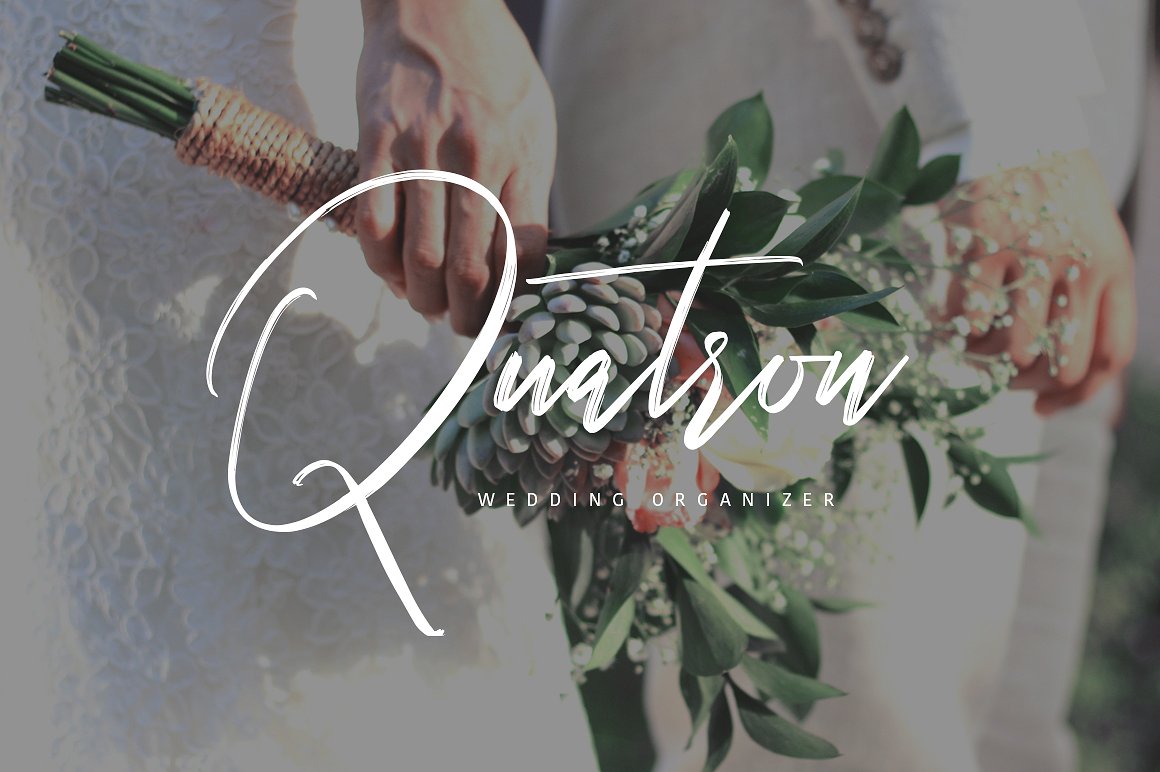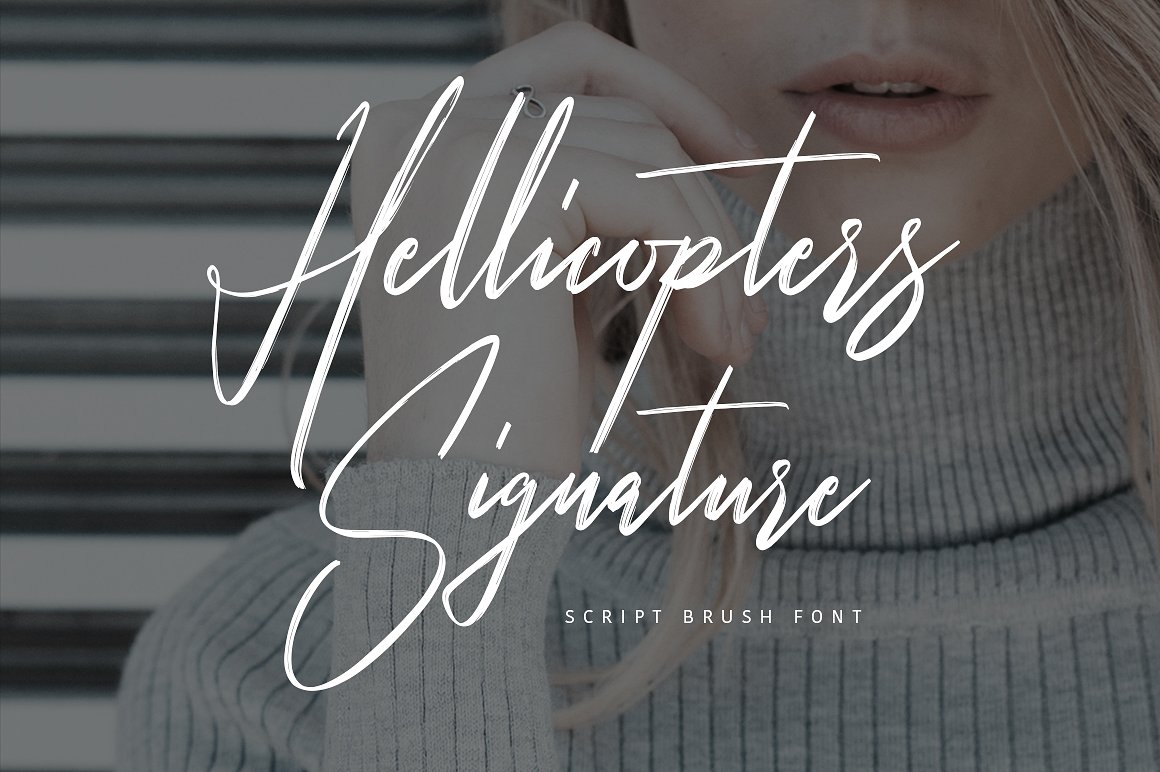
Hellicopters Brush Font
Give your designs an authentic handcrafted feel. “Hellicopters” is perfectly suited to signature, stationery, logo, typography quotes, magazine or book cover, website header, clothing, branding, packaging design and more.
| Classification: | Calligraphy Fonts, Script Fonts |